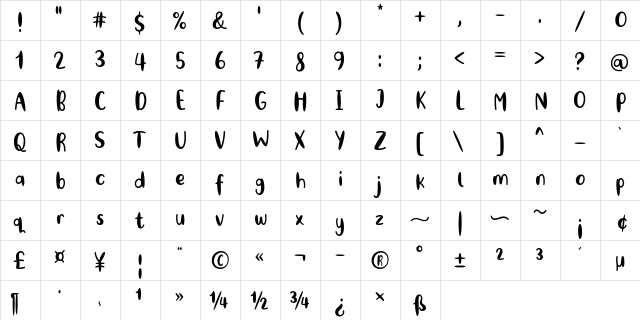
Stephia Regular
| Foundry | 7NTypes |
| Designer | Rifki; Situjuh Nazara |
Design Context for Stephia Typeface
Stephia is a composed and adaptable typeface that performs quietly and consistently across a wide range of design contexts.